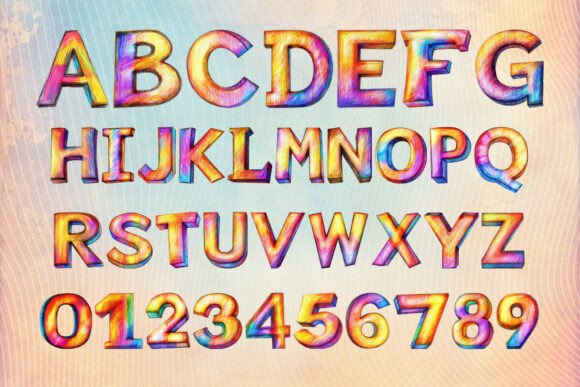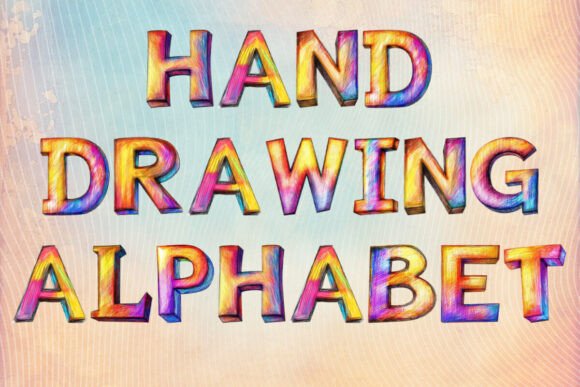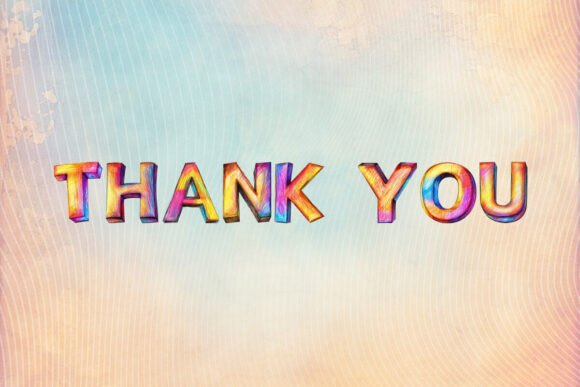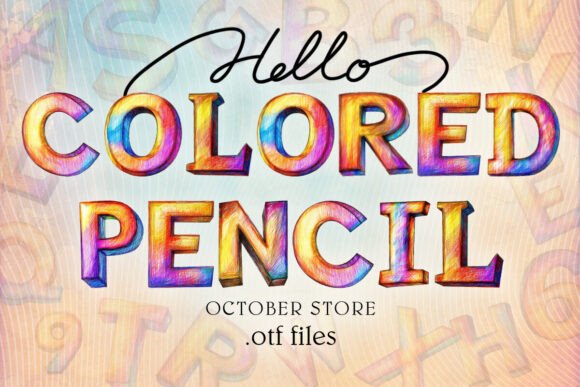
Introducing the Colored Pencil Font: A Whimsical Delight for Children’s Projects
Are you looking for a font that captures the essence of childhood creativity and playfulness? Look no further than the Colored Pencil Hand Drawing Alphabet! This delightful font is perfect for children’s school-related projects, adding a touch of whimsy and joy to any educational material. In this article, we’ll explore the features and benefits of this unique font, and how it can bring a fresh and youthful vibe to your designs.
A Hand-Drawn Masterpiece
The Colored Pencil Hand Drawing Alphabet is a one-of-a-kind font that mimics the vibrant and colorful world of children’s art. Each letter is carefully hand-drawn to resemble a coloring masterpiece, complete with subtle imperfections and playful flair. This font is the perfect representation of a child’s imagination and creativity, making it an excellent choice for book covers, educational study materials, and other children’s projects.
Perfect for Back-to-School Ambiance
As the new school year approaches, why not add a touch of excitement and anticipation to your designs with the Colored Pencil Hand Drawing Alphabet? This font is ideally suited for creating eye-catching book covers, worksheets, and other educational materials that will capture the imagination of young learners. Its playful and youthful vibe is guaranteed to bring a smile to any child’s face, making learning a fun and enjoyable experience.
Bringing Learning to Life
One of the most significant benefits of the Colored Pencil Hand Drawing Alphabet is its ability to bring learning to life. This font adds an authentic and playful touch to any educational material, making it an excellent choice for teachers, educators, and designers who want to create engaging and interactive learning experiences. Whether you’re designing worksheets, activity sheets, or educational posters, this font is sure to captivate your audience and inspire young minds.
Celebrating Childhood Creativity
The Colored Pencil Hand Drawing Alphabet is more than just a font – it’s a celebration of childhood creativity and imagination. This font embodies the simplicity and playfulness of childhood, reminding us of the joy and wonder of learning. By using this font in your designs, you’re not only adding a touch of whimsy but also paying tribute to the creative spirit of childhood.
Tips and Inspiration for Designers and Crafters
Are you ready to unleash your creativity with the Colored Pencil Hand Drawing Alphabet? Here are a few tips and inspiration to get you started:
• Use this font to create eye-catching book covers, activity sheets, and educational posters that will capture the imagination of young learners.
• Experiment with different color combinations and design elements to bring your projects to life.
• Pair this font with other playful and whimsical design elements, such as illustrations, graphics, or textures, to create a cohesive and engaging design.
• Don’t be afraid to add your own personal touch and style to your designs – after all, that’s what makes them unique!
In conclusion, the Colored Pencil Hand Drawing Alphabet is a unique and delightful font that’s perfect for children’s school-related projects. Its hand-drawn aesthetics, playful vibe, and compatibility with popular design software make it an excellent choice for designers, crafters, and educators. Whether you’re looking to create engaging educational materials, eye-catching book covers, or whimsical crafts, this font is sure to bring a touch of joy and creativity to your designs. So why not give it a try and discover the magic of the Colored Pencil Hand Drawing Alphabet?